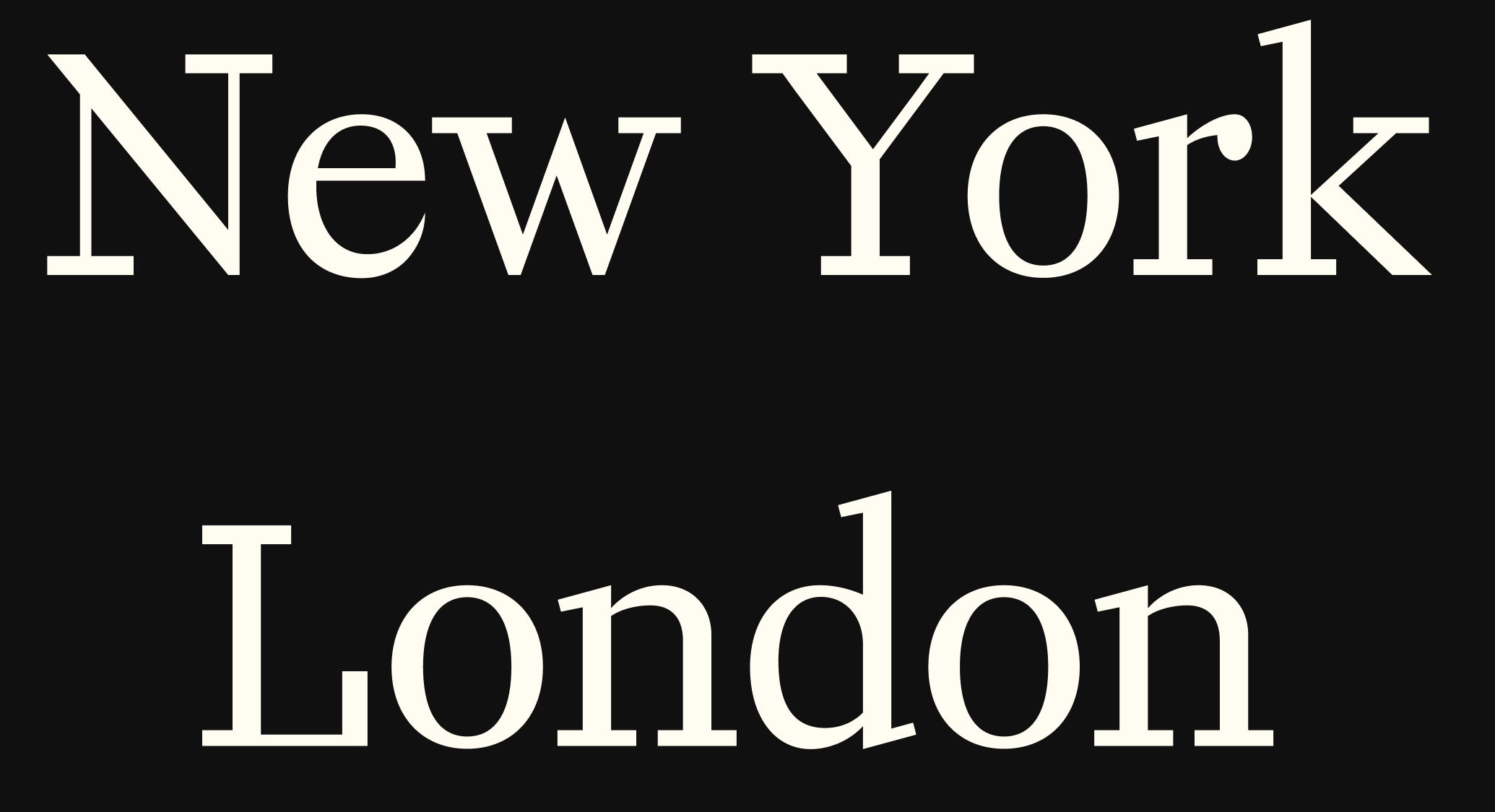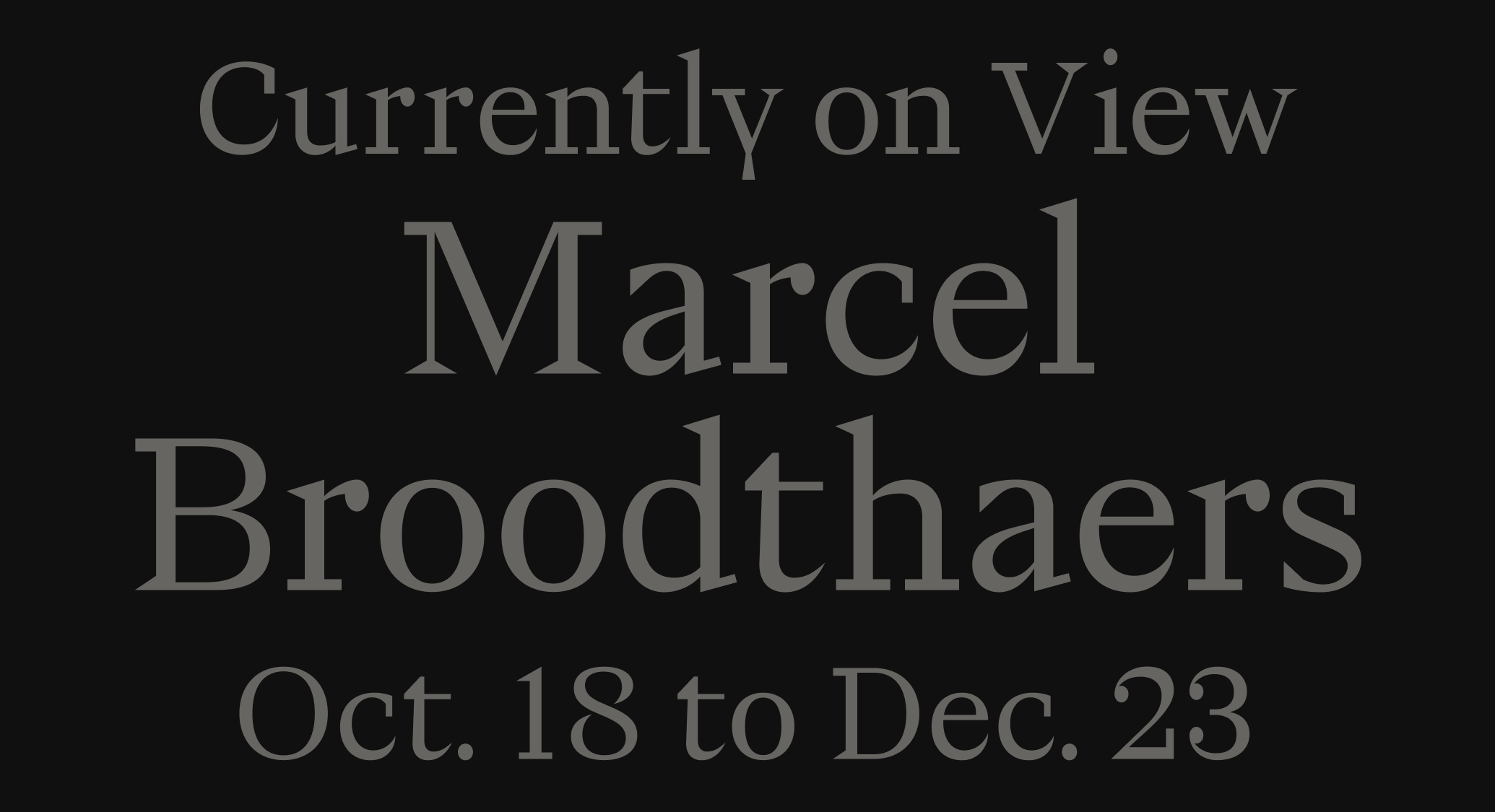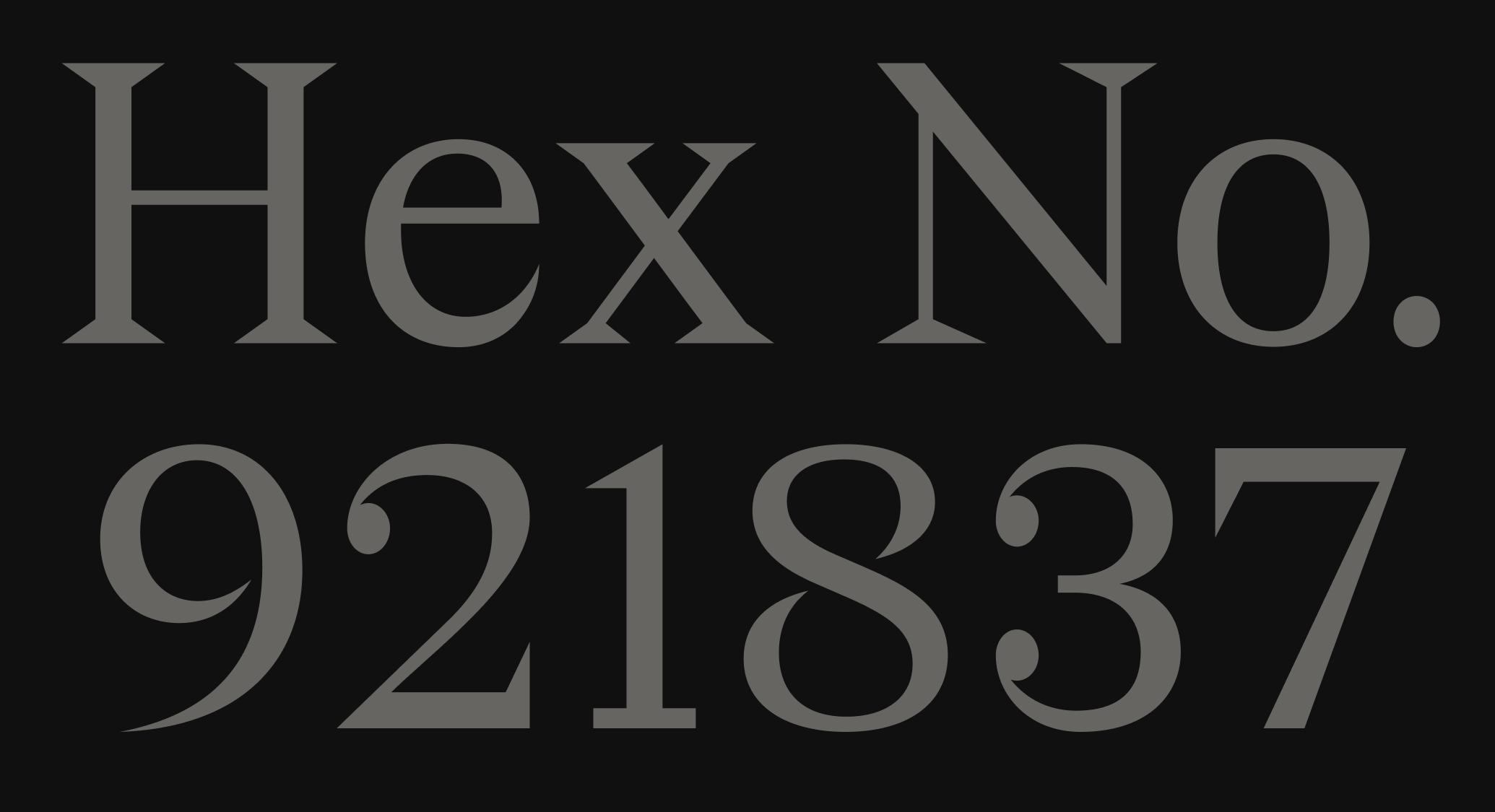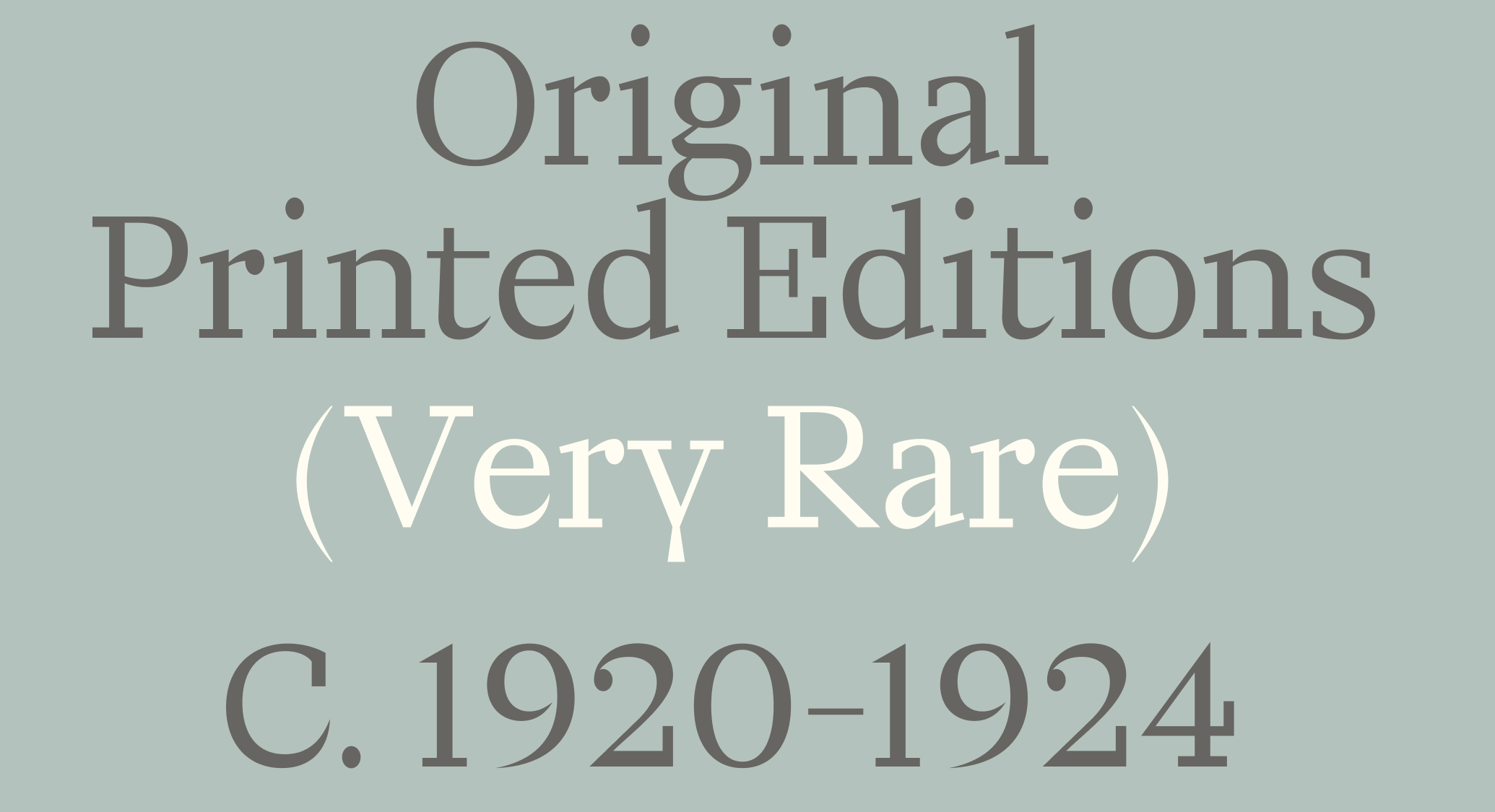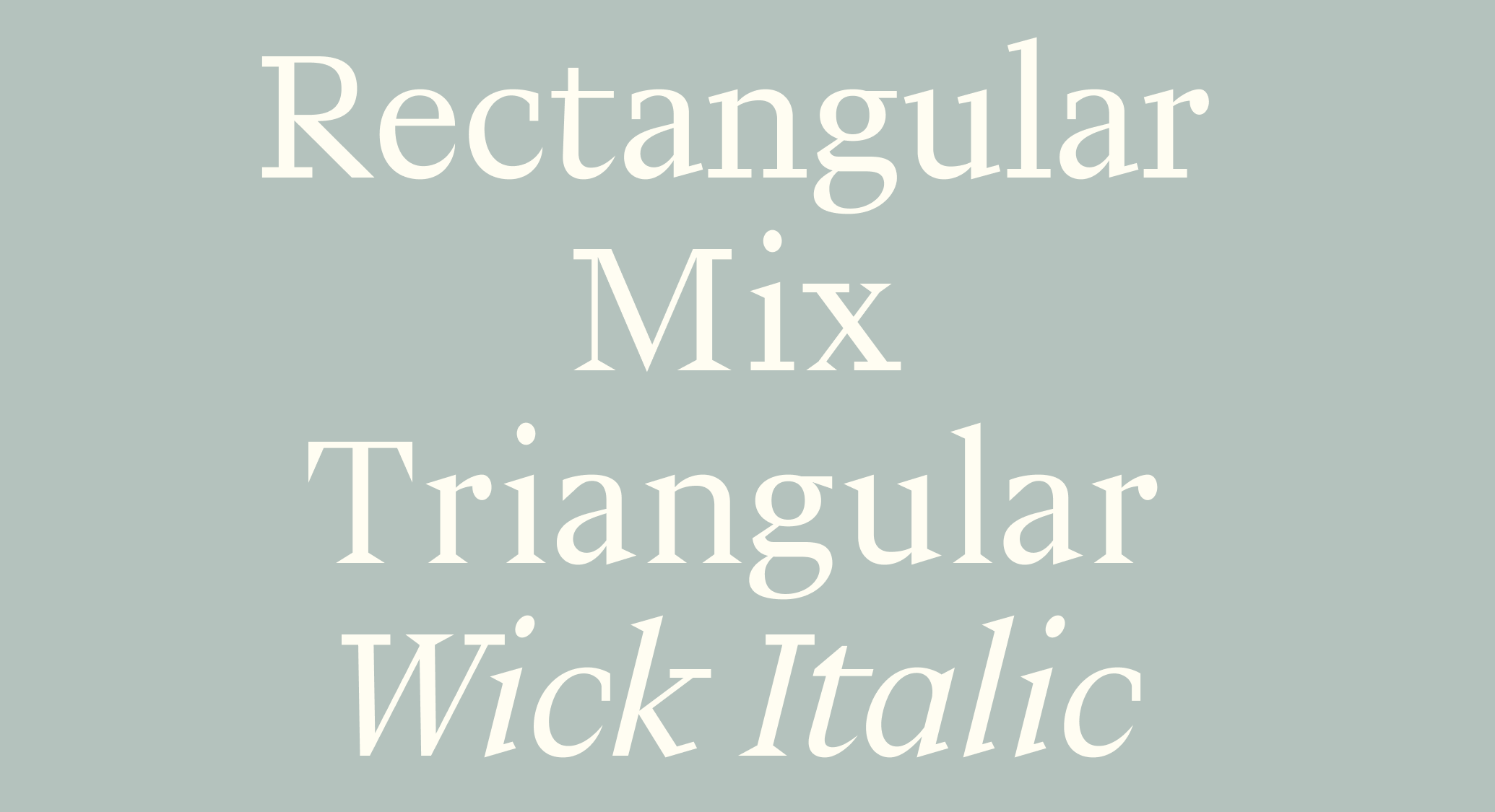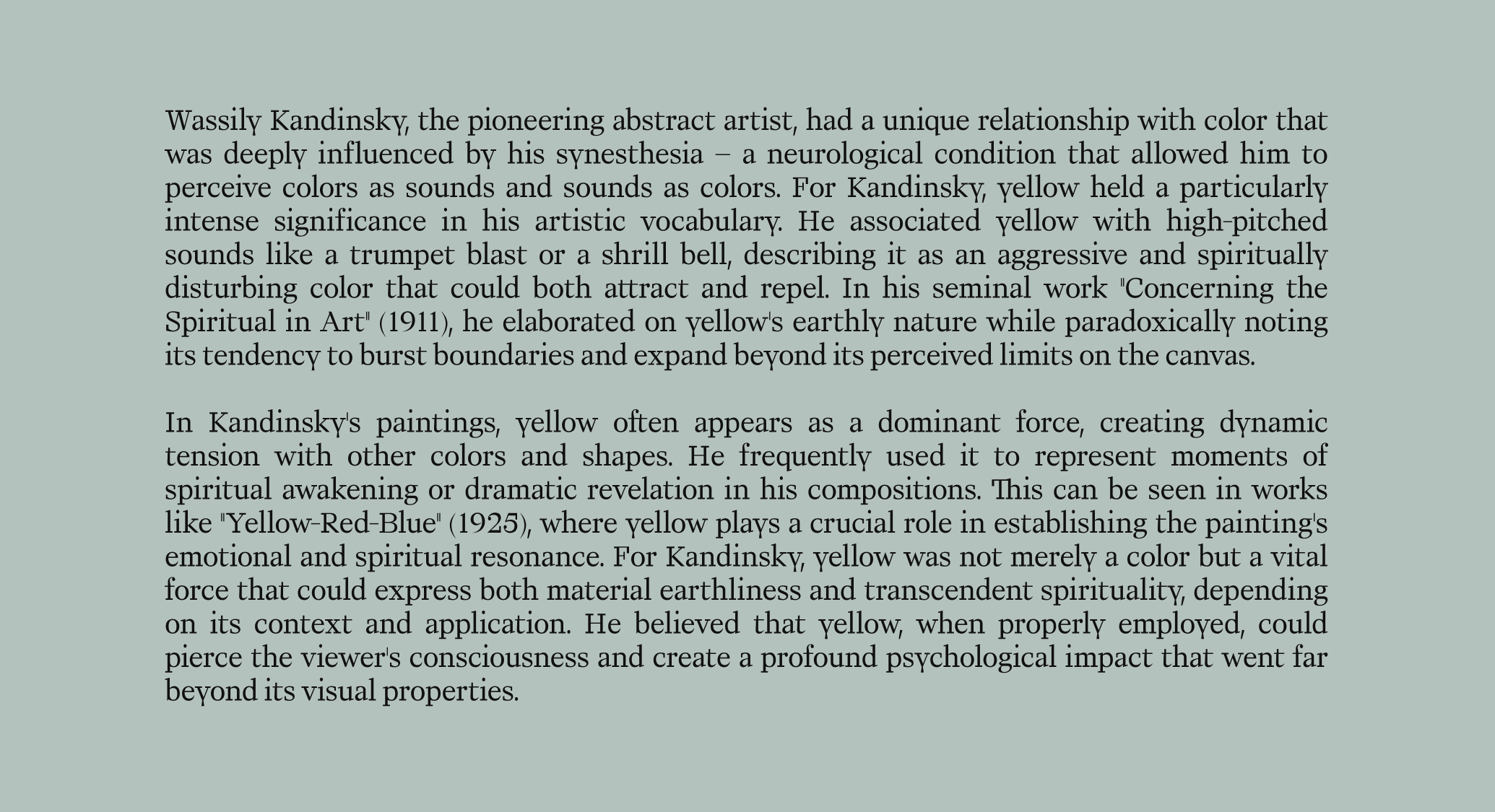
AF Wick
Rectangular Italic Mix Triangular
AF Wick is a serif with serious main character energy. Its chameleonic capacity to adopt different serifs, from chunky to sharp, allows designers to adjust its tone based on the setting. Graceful yet dangerous, delicate yet forceful, Wick is like a bodybuilder in a ballet.